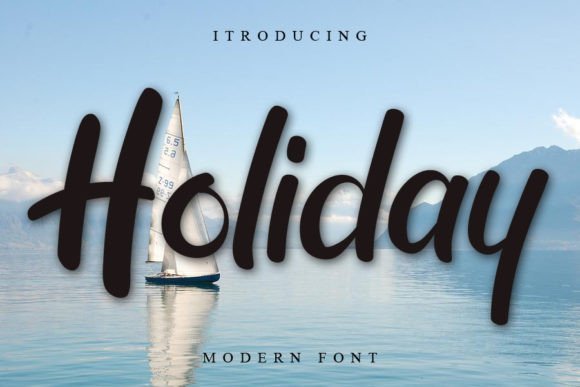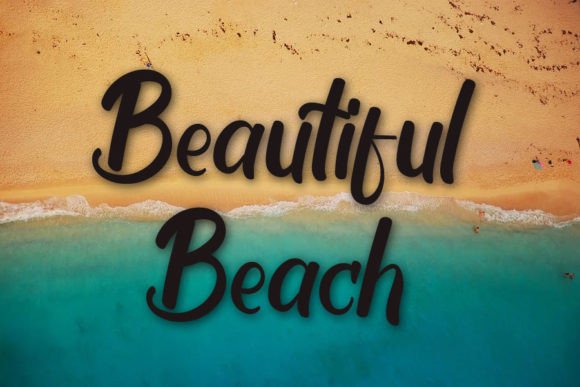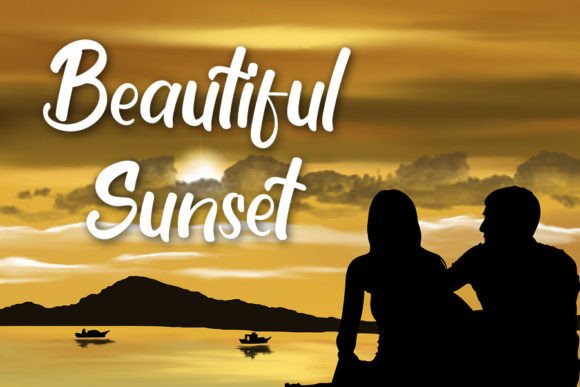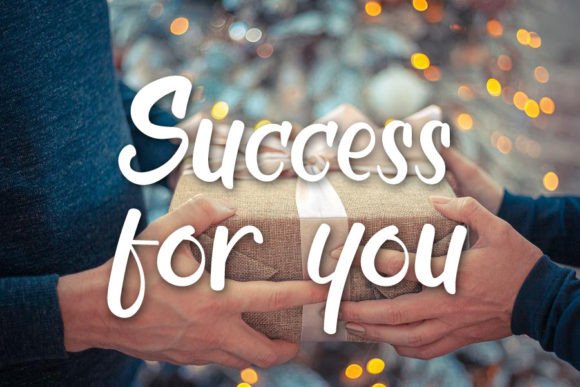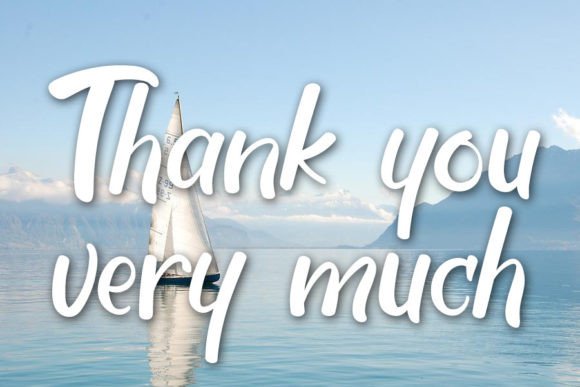
Adding a Touch of Cheer to Your Creations
Have you ever found yourself rummaging through your craft supplies, searching for the perfect combination of colors and textures to create a unique and eye-catching design? I’m guessing you have. As creatives, we’re always on the lookout for that special something that sets our projects apart. And sometimes, it’s not just about the materials – it’s about the fonts we choose to bring our ideas to life.
That’s where the Holiday Font comes in. This fun and casual handwritten font is perfect for adding a touch of personality to your crafts, digital designs, presentations, and even greeting cards. With its playful, handwritten style, it’s no wonder designers have fallen in love with the Holiday Font. Whether you’re working on a holiday project or just need a font to add some whimsy to your designs, this font is sure to become your new favorite go-to choice.
Holiday Font Key Features
- Font Style: A festive and playful script font, ideal for holiday-themed designs and decorations.
- Character Set: Includes a wide range of characters, including uppercase and lowercase letters, numbers, and punctuation marks, as well as holiday-themed symbols and ornaments.
- Unique Characteristics: Features a hand-drawn, cursive design with intricate details and flourishes, giving it a unique and festive feel.
Holiday Font Review
Overall, I think the Holiday Font has some great qualities, but it also has some areas where it falls short. Let’s start with what works well.
- ✨ The font’s festive vibe is perfect for the holiday season. It’s energetic, fun, and captures the spirit of the holidays.
- ✨ The font’s varied weight and style options allow for a lot of creative flexibility. You can use it for headers, body text, and even titles.
- ✨ The font is highly legible, even at small sizes, which is a must-have for any font.
- ⚠️ The font’s design can feel a bit over-the-top for some users. The bold, bright colors and ornate details might be overwhelming for those who prefer a more subdued look.
- ⚠️ Some users might find the font’s lack of subtlety makes it difficult to read in certain contexts.
Overall, I think the Holiday Font is a great choice for designers who want to add a festive touch to their projects. However, it’s not for everyone, and users should be aware of its limitations before using it.
Holiday Font is perfect for:
- Christmas and New Year’s Eve invitations and cards
- Holiday-themed social media posts and graphics
- Winter-themed greeting cards and gift tags
- Festive newsletters and email campaigns